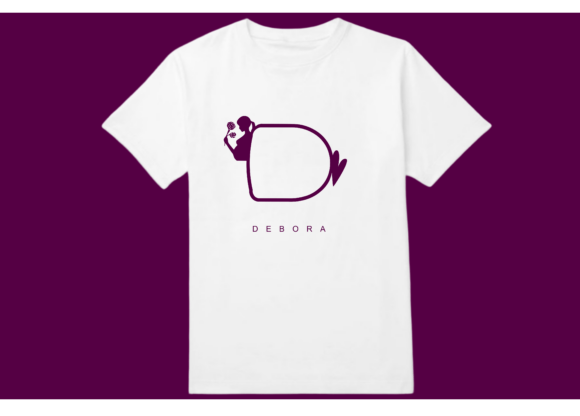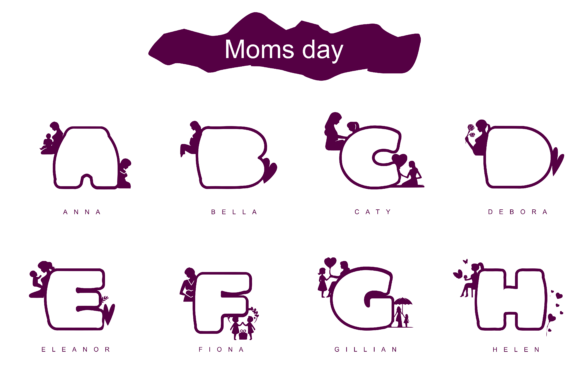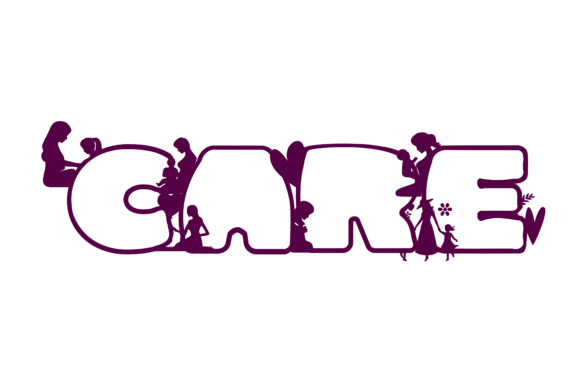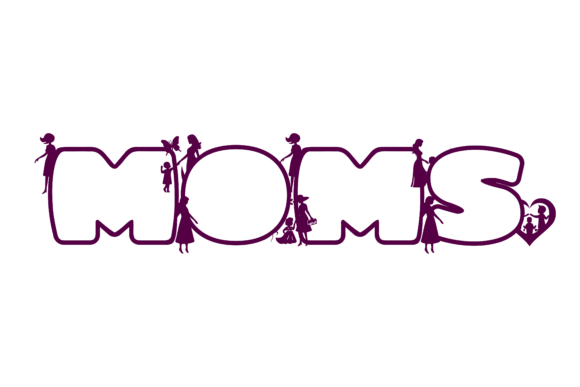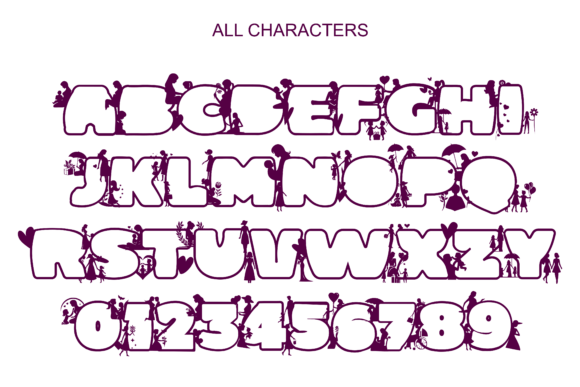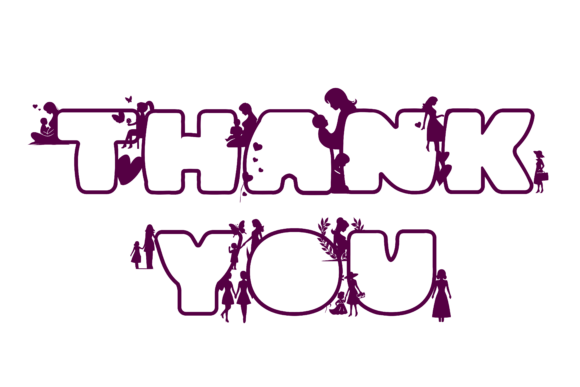
Introduction to Moms Day Font Font
Fonts play a crucial role in design, and the Moms Day Font font is a typeface that brings both character and versatility to any project. Whether you’re working on a branding project, a website, or a print design, the Moms Day Font font offers a unique style that can elevate your work.
Experience the transformative power of Moms Day, an inventive font that embodies unceasing energy, opening new horizons for infinite creative exploration.
Welcome Fairy, a meticulously curated typeface that elevates your artistic prowess, infusing richness and vitality to expand your creative canvas Succumb to the captivating allure of Moms Day, working in perfect harmony with your creativity to ignite your artistic expression.
Key Features of Moms Day Font Font
Why Choose Moms Day Font Font?
The Moms Day Font font is more than just a typeface – it’s a design tool that helps you communicate your message with style and clarity. Its unique character set and versatile design make it suitable for a wide range of applications, from elegant invitations to bold headlines.
With its carefully crafted letterforms and balanced proportions, the Moms Day Font font ensures readability and visual appeal across all mediums.
What makes Moms Day Font font special?
The Moms Day Font font stands out with its unique design, exceptional readability, and versatility across various design applications.